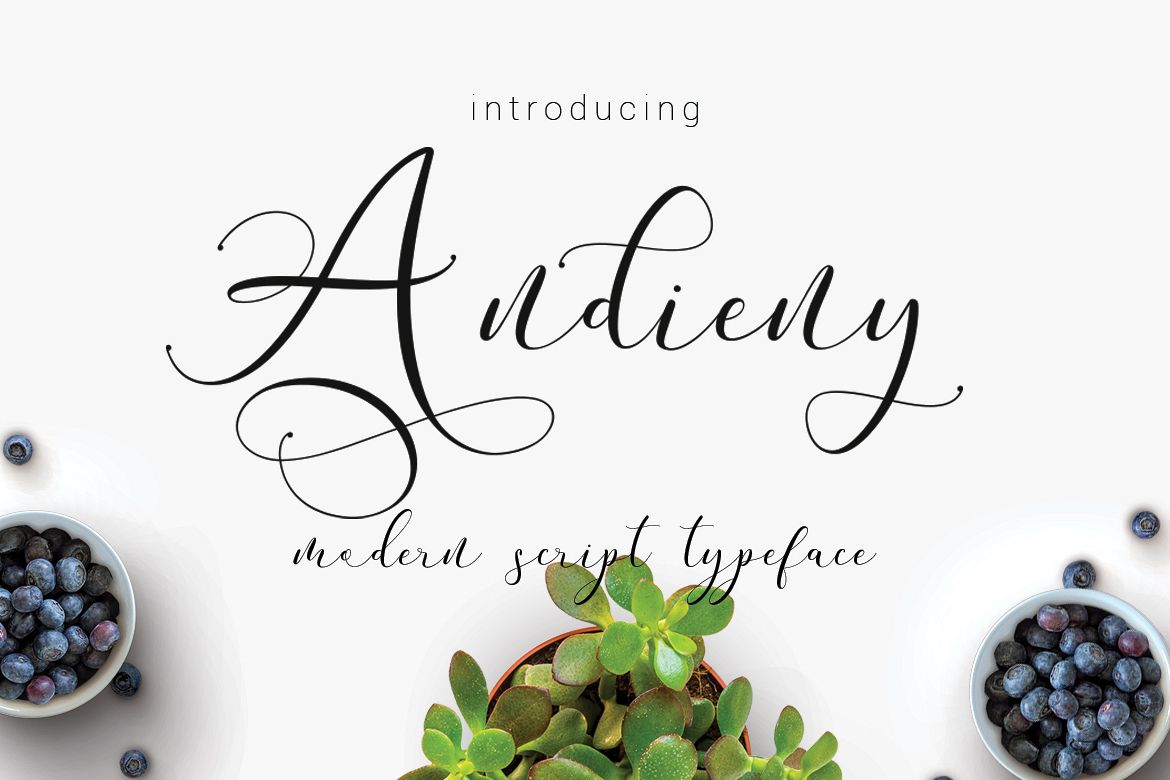
Andieny Script
Andieny
Hello world..!! this is Andieny Script Typeface, simple and easy to create awesome lettering, just type your words and then you will immediately see the great results. Andieny is modern script font, every single letters have been carefully crafted to make your text looks beautiful. With modern script style this font will perfect for many different project ex: quotes, blog header, poster, wedding, branding, logo, fashion, apparel, letter, invitation, stationery, etc.
The Andieny Script features:
• Uppercase & lowercase
• Stylistic alternatives & swashes
• Initials & finals
• International characters (Multilingual)
• Punctuation & symbols